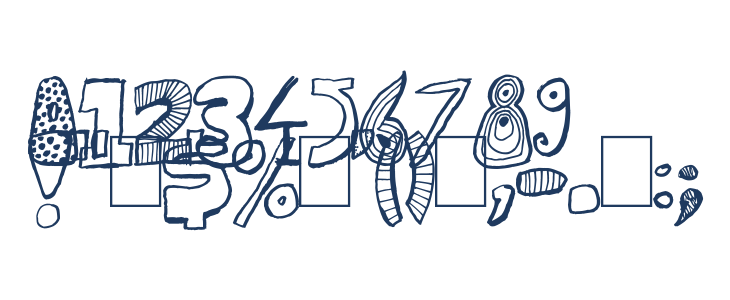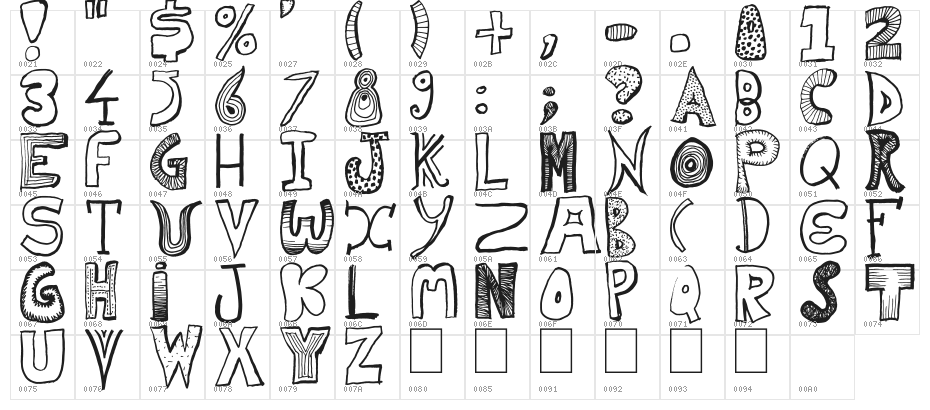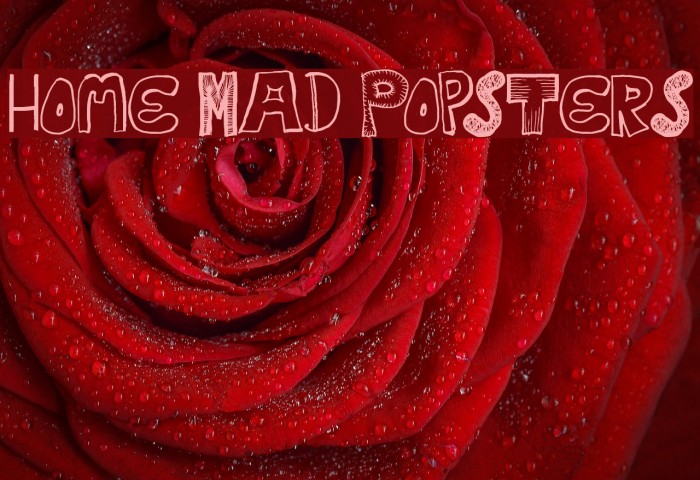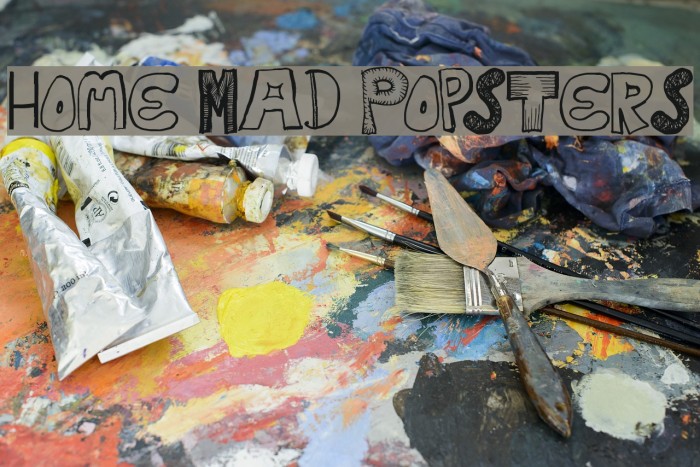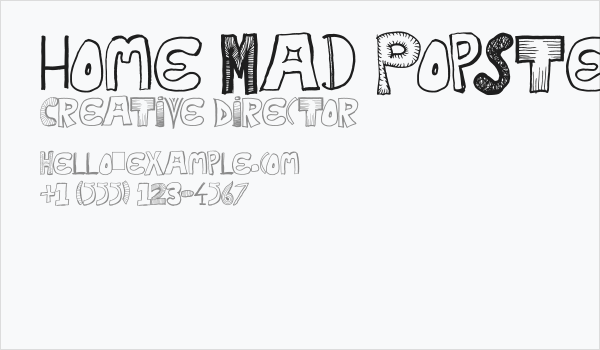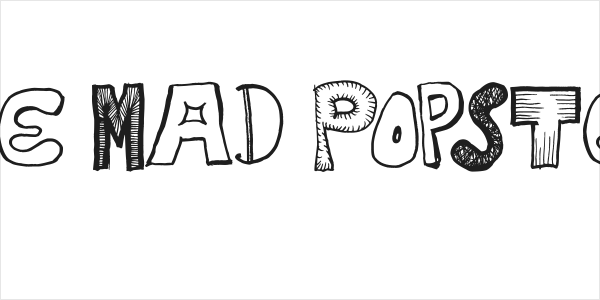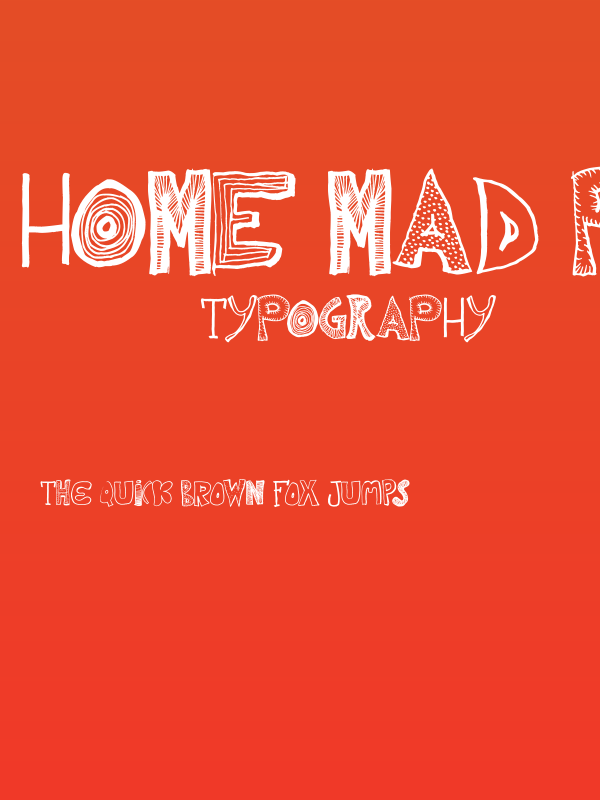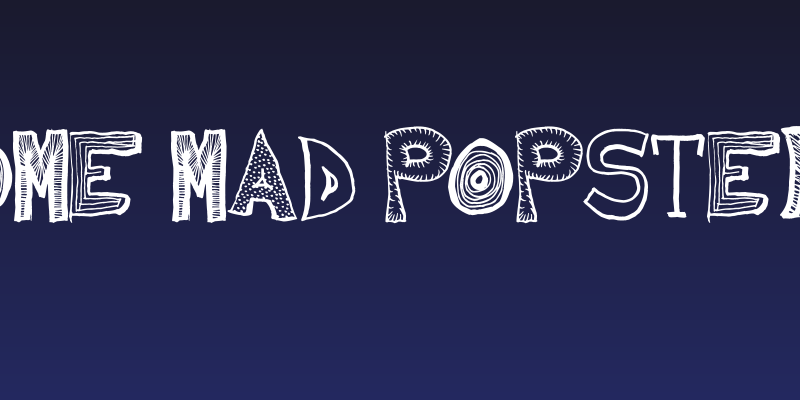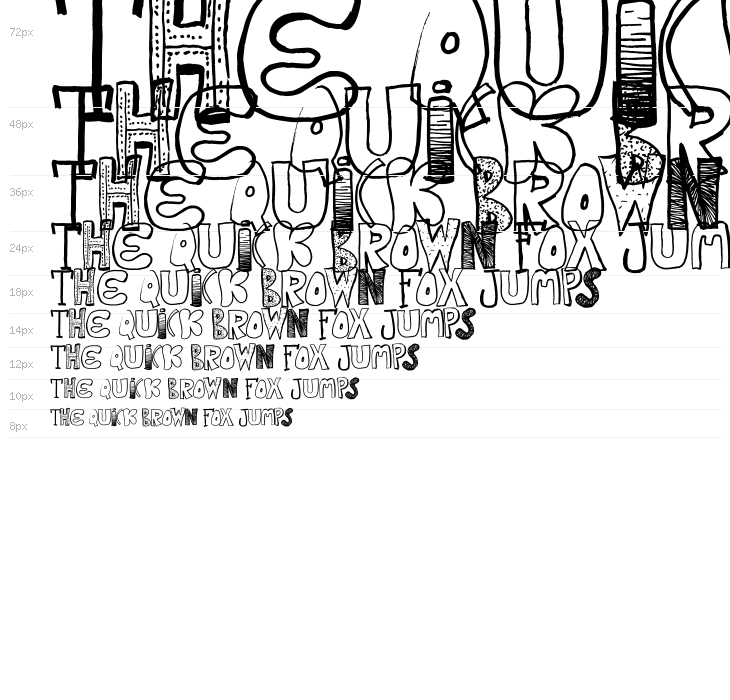
Home Mad Popsters Font
This font is a playful and eclectic collection of hand-drawn characters, each with a unique pattern or texture. The uppercase and lowercase letters exhibit a variety of whimsical designs, including stripes, dots, and zigzags, giving it a lively and artistic appearance. The numbers and special characters continue this theme, with bold and imaginative shapes that add to the font's overall charm. This font is perfect for projects that require a fun and creative touch, such as children's books, posters, or any design that seeks to capture attention with its quirky style.
Use CaseHeadlines, Posters, Creative Projects
Proposed ProjectsIdeal for children's books, creative posters, and eye-catching designs.